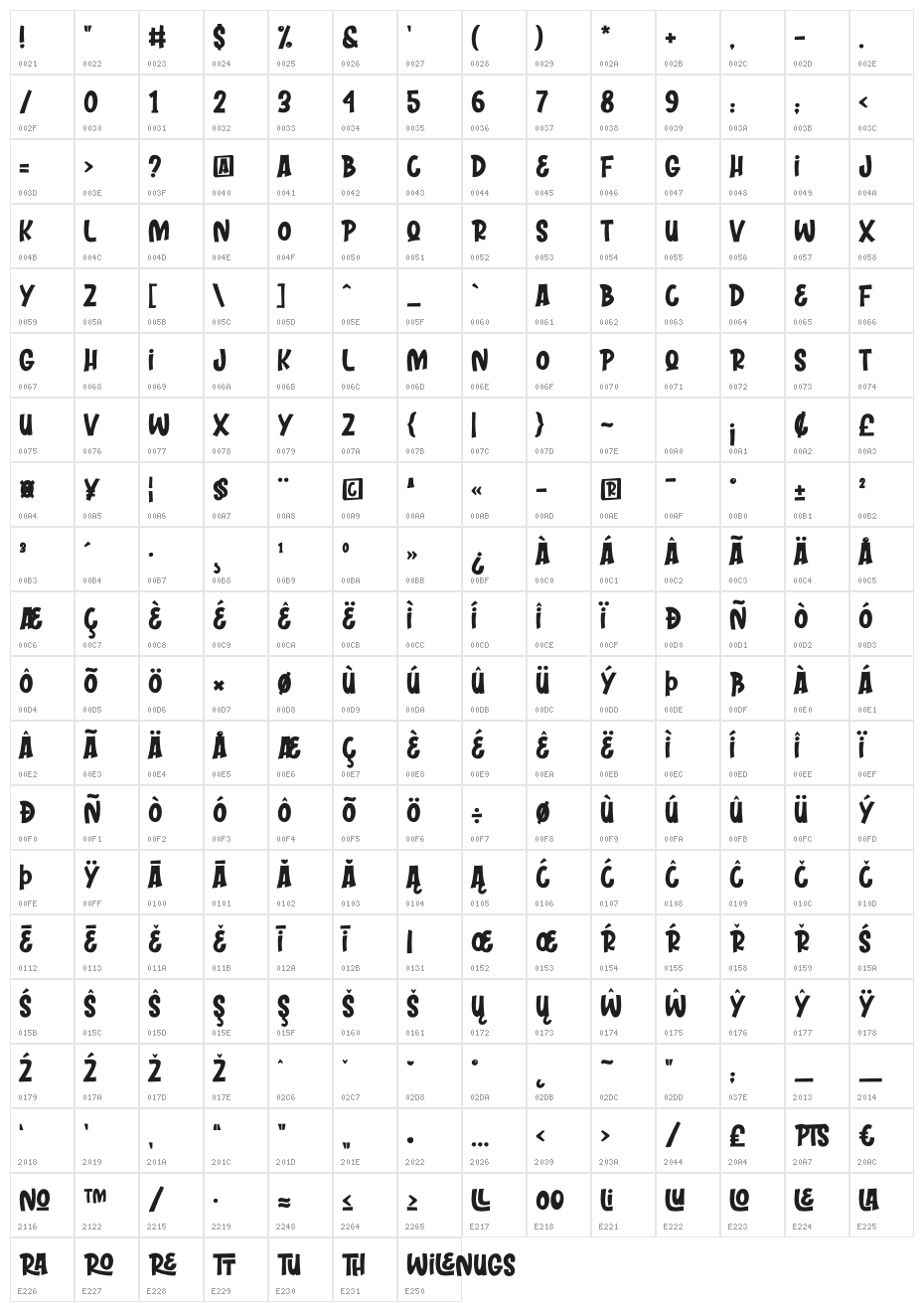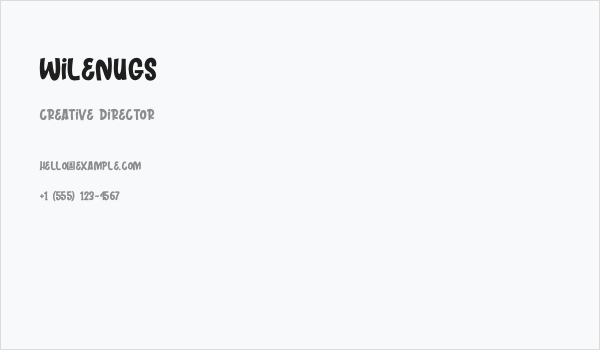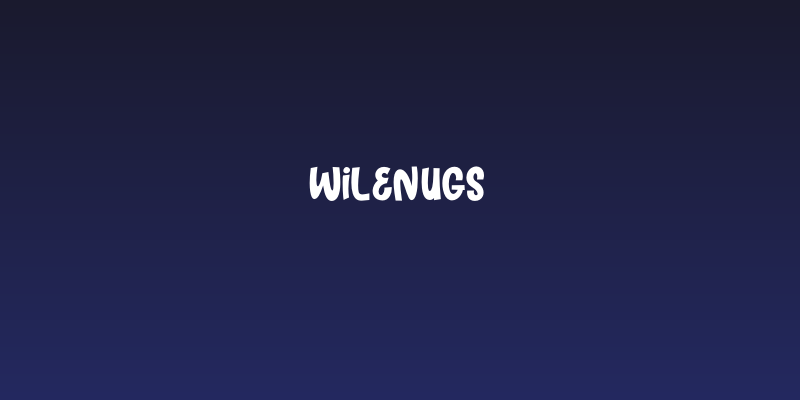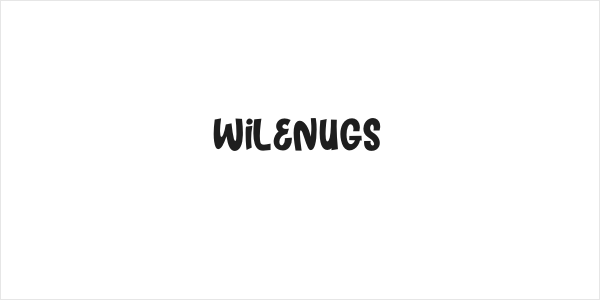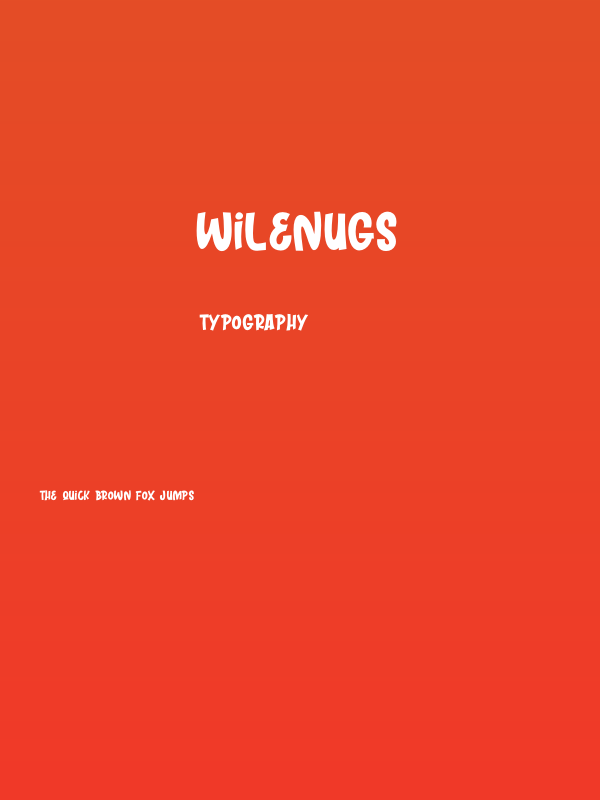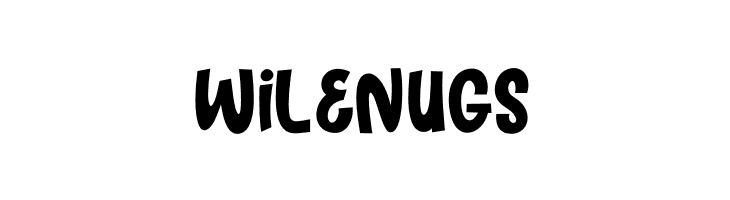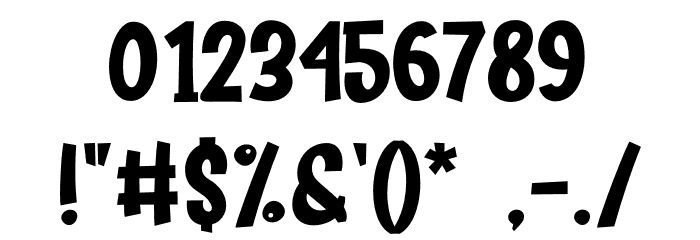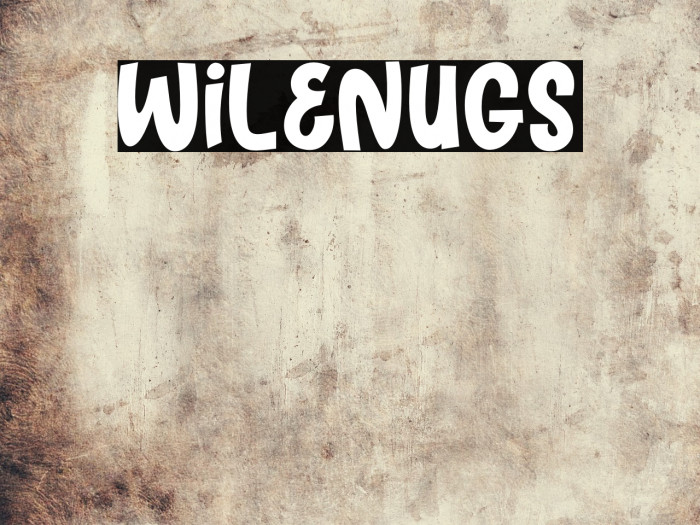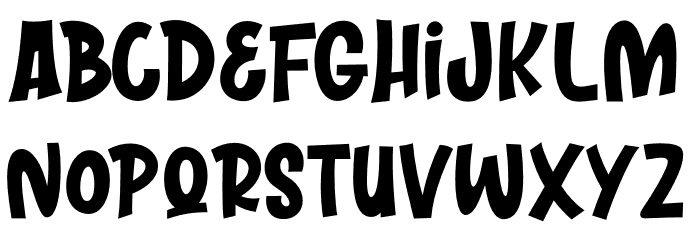
WILENUGS Font
WILENUGS Description
This playful and bold font features a whimsical and dynamic style, characterized by its thick, rounded strokes and slightly irregular shapes. The uppercase and lowercase letters maintain a consistent weight, giving the font a cohesive look. The numbers and special characters are designed with the same playful flair, making them suitable for a variety of creative projects. The font's unique personality is perfect for capturing attention and adding a fun, informal touch to any design. Its boldness ensures readability while the quirky forms add a sense of movement and energy.
| Proposed Projects | Ideal for children's books, playful branding, posters, and party invitations. |